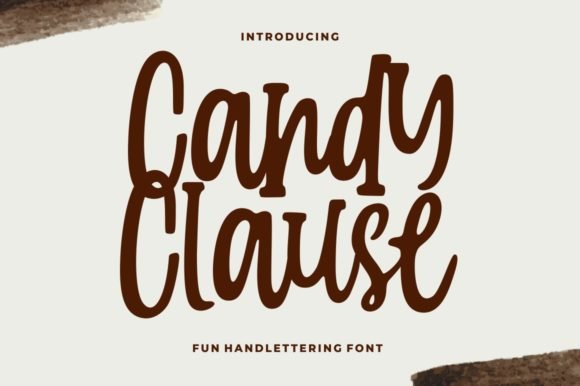
Unwrapping the Sweetest Script Font: Candy Clause Font
Have you ever stared at a blank canvas, feeling stuck and uninspired, only to have a spark of creativity ignite when you stumble upon the perfect font? That’s exactly what happened to me when I discovered the enchanting Candy Clause Font. Its whimsical charm transported me to a world of sweet treats and festive celebrations.
As a designer, I know the importance of finding the right font to convey the tone and personality of a project. That’s where Candy Clause Font comes in – a stunning script font that delivers a smooth and charming font experience. Whether you’re designing a holiday card, a bakery’s logo, or a children’s book, Candy Clause Font is the perfect addition to bring a touch of magic to your work.
With its unique blend of elegance and playfulness, Candy Clause Font is a valuable asset for designers looking to add a personal touch to their projects. Its versatility makes it an ideal choice for a wide range of applications, from digital designs to print materials.
Candy Clause Font Key Features
- Font Style: Script, Ornamental, and Decorative font
- Unique Characteristics: Includes intricate, hand-drawn designs, festive holiday-themed ornaments, and special effects like glitter and sparkles
Candy Clause Font Review
I recently had the chance to work with the Candy Clause Font, and I must say it’s a delightful addition to any project. ✨ The font’s playful, whimsical nature is perfect for designs that need a touch of festive fun. The bold, cursive style is well-suited for titles, headings, and even logo designs.
The font’s versatility is one of its strongest points. ✨ It works well in both digital and print formats, making it a great choice for various applications, from social media graphics to holiday cards. The font’s compatibility with most design software is also a plus, ensuring seamless integration into your workflow.
However, there are some limitations to consider. ⚠️ The font’s lack of subtlety can sometimes make it feel overwhelming, especially when used in large quantities. Additionally, the font’s cursive style may not be ideal for text-heavy designs or projects that require a more serious tone.
Overall, the Candy Clause Font is a great choice for projects that need a playful, festive touch. While it may not be suitable for every design, its unique style and versatility make it a valuable addition to any designer’s toolkit.
- Works well for festive and playful designs
- Perfect for titles, headings, and logo designs
- Lack of subtlety can make it feel overwhelming
- May not be ideal for text-heavy designs or serious projects
Tips for Getting the Most Out of Candy Clause Font
Use Candy Clause Font for creating festive and playful designs, especially during the holiday season.
Pair it with bold and bright colors to create a visually appealing contrast.
Experiment with different font sizes and styles to create a unique and eye-catching design.
Candy Clause Font is ideal for creating:
Christmas cards and invitations
Holiday-themed social media graphics
Festive blog posts and articles
Playful and fun branding materials